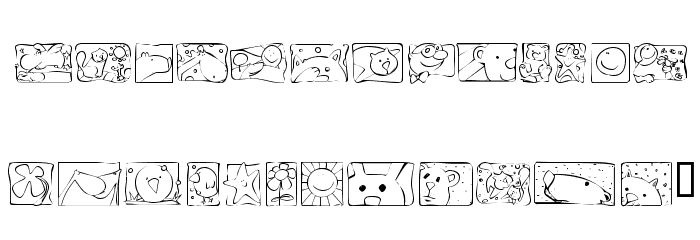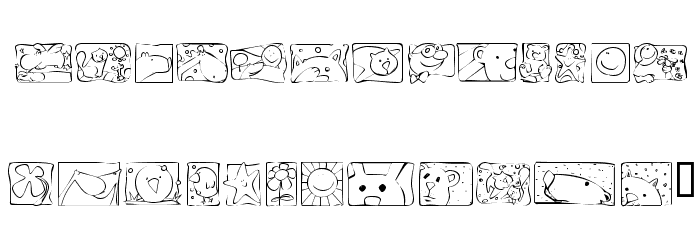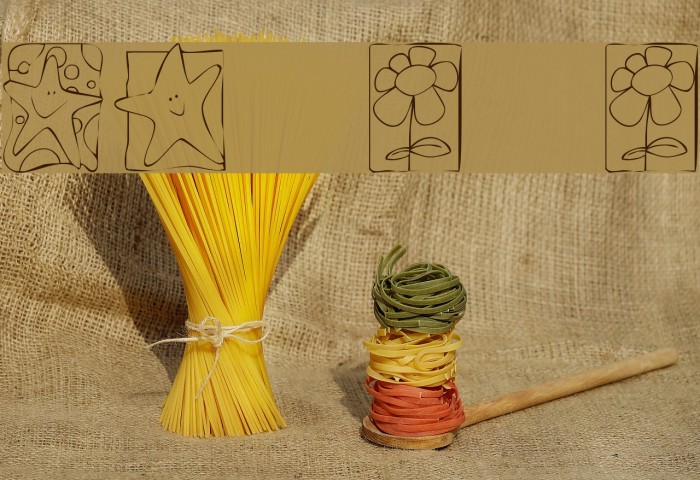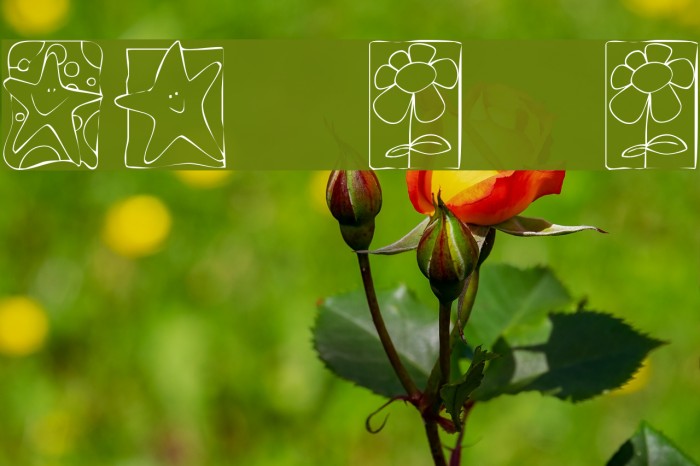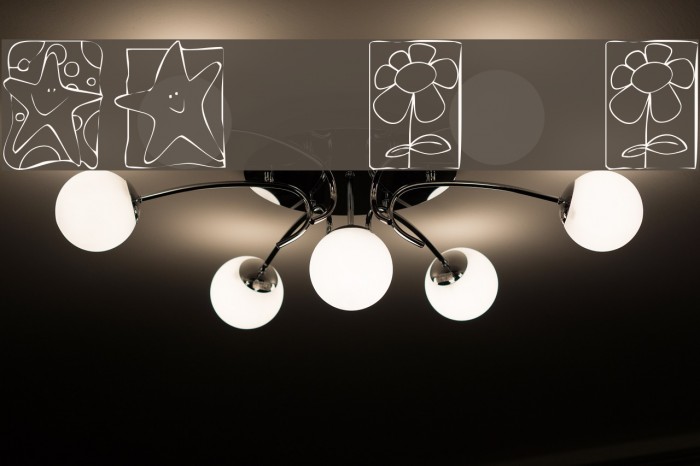
KR Scrappin Squares Font
This is a decorative font featuring playful and whimsical square illustrations. Each character is enclosed within a square, showcasing various cartoon-like designs such as animals, stars, and other fun elements. The style is light-hearted and imaginative, making it ideal for projects that require a touch of creativity and fun. The characters are evenly spaced within their squares, providing a consistent and uniform appearance. This font is perfect for children's projects, scrapbooking, or any design that aims to convey a sense of joy and playfulness.
A decorative font with whimsical square illustrations, perfect for playful designs.
- Proposed Projects: Ideal for children's books, scrapbooking, playful invitations, and creative design projects.
- Use Case: Logos, Headlines, Creative projects